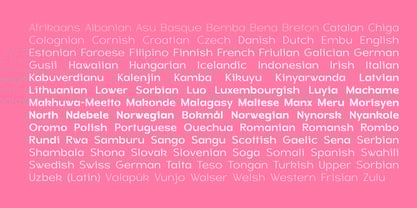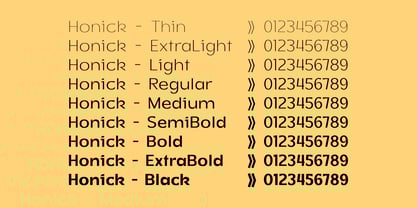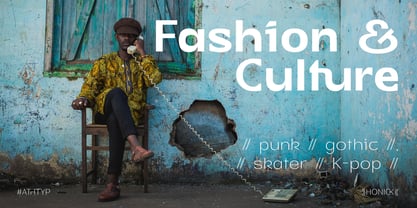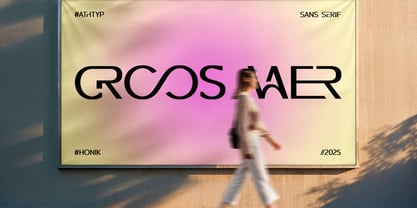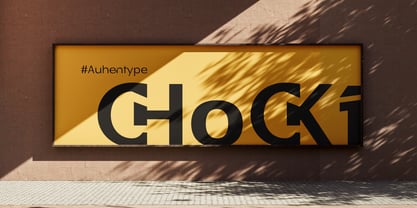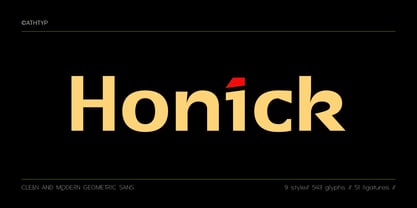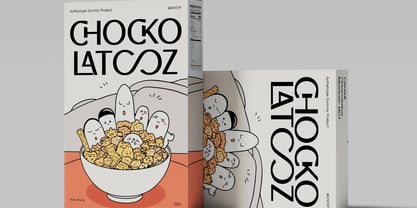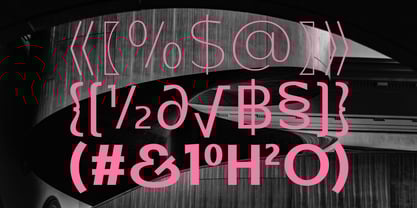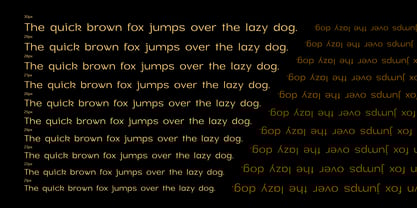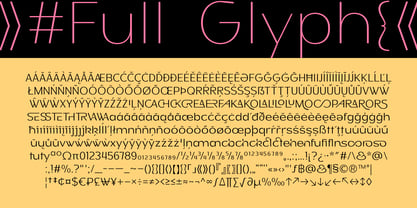
Honick
The Honick Font Family was designed by Ekayasa and published by Authentype. Honick contains 9 styles and family package options.
Honick is a clean and modern geometric sans serif font designed for designers, brands, and creatives who want to stand out with confident, contemporary typography. With 9 font weights ranging from Thin to Black, Honick offers maximum versatility for any design project, from minimalist logos to bold editorial headlines. This font family includes 543 glyphs, 51 unique ligatures, and full multilingual support for over 90 languages. Every letter is carefully crafted with smooth geometric curves and subtle unique cuts, giving Honick a friendly yet professional personality.